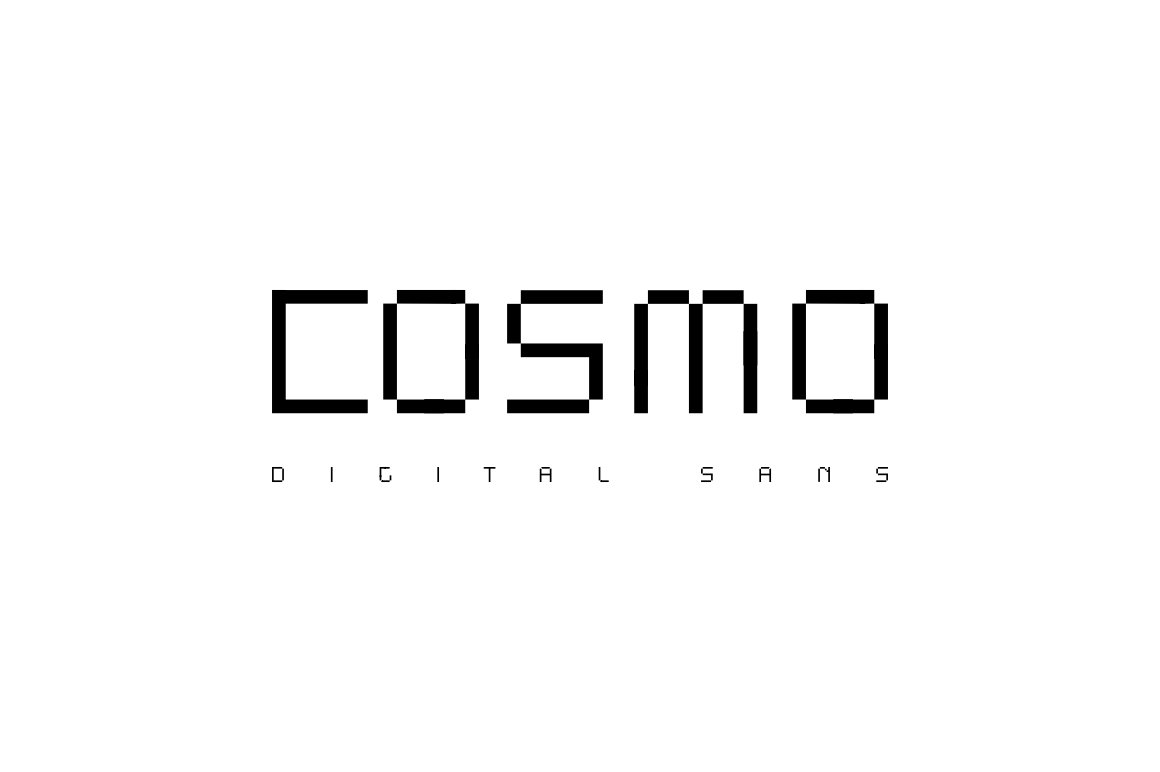
FF PATH SPECT pixellated font Font
perfect for technology-driven designs, minimalist branding, or impactful headlines, Pixell seamlessly combines style and readability. Elevate your visual storytelling with a font that stands out in every pixel.
Versatile Styles: Regular and Italic options for diverse design needs.